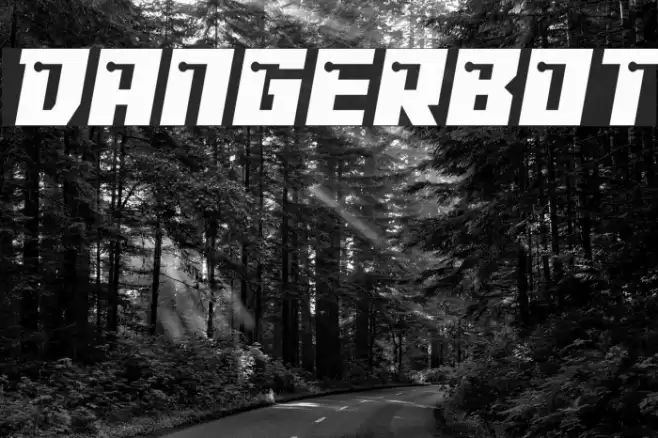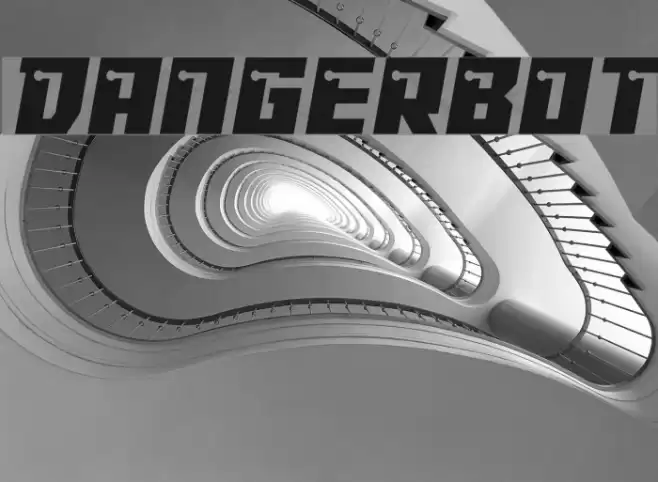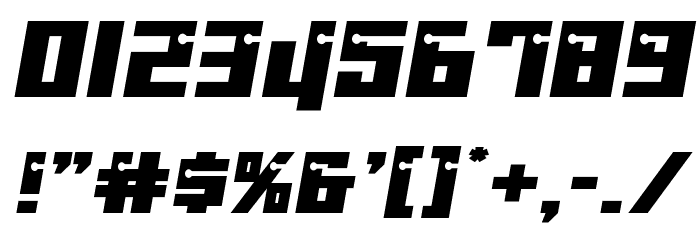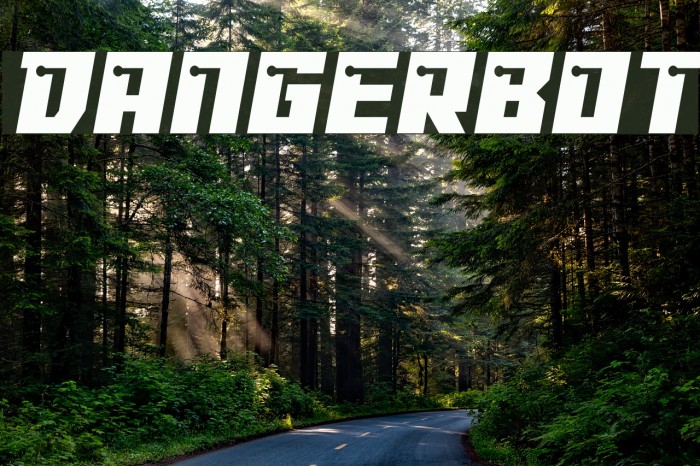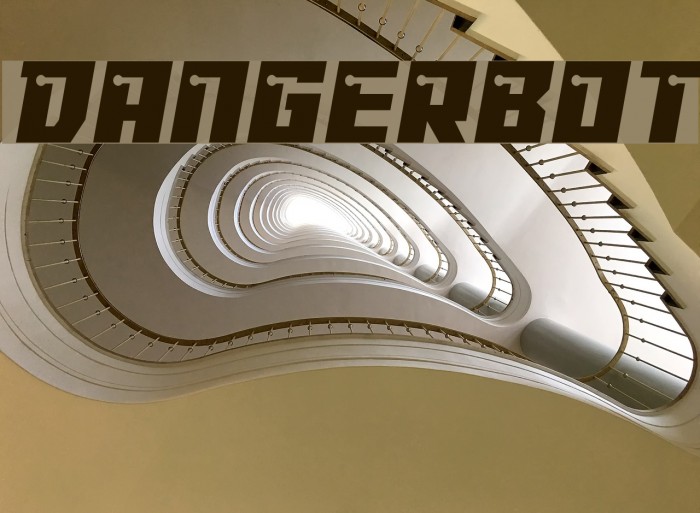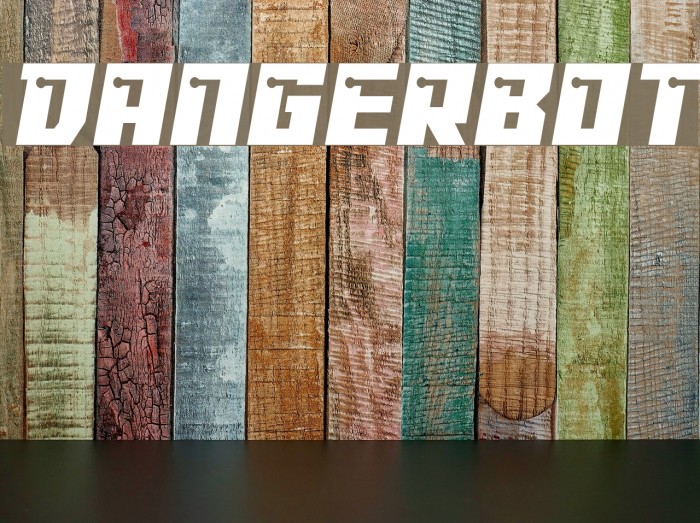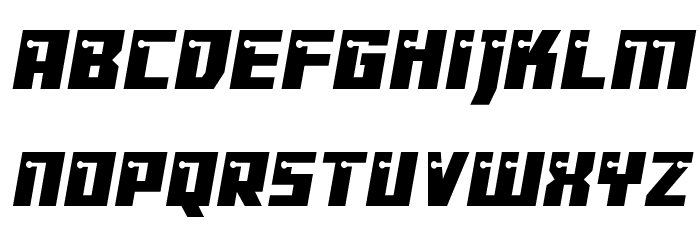
Dangerbot Font
Dangerbot Description
This font features a bold, angular design with a futuristic and robotic aesthetic. The characters are sharply defined with a distinct geometric style, incorporating sharp edges and a blocky appearance. The uppercase and lowercase letters maintain a consistent height, contributing to a uniform look. The numbers and special characters follow the same angular theme, ensuring cohesion across all glyphs. This font is ideal for projects that require a modern, tech-inspired look, such as video game titles, sci-fi movie posters, or tech company branding.
A bold, angular font with a futuristic, robotic design from Sci-fi fonts.
- Proposed Projects: Ideal for video game titles, sci-fi movie posters, tech company branding, and futuristic designs.
- Overall Style: Futuristic, Modern